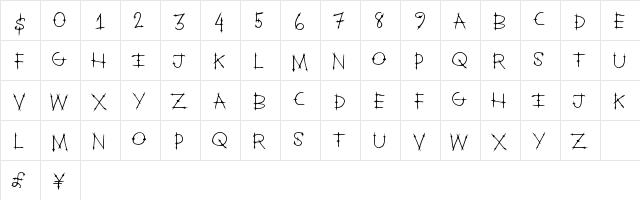
HeavenGate Regular
| Foundry | Xerographer Fonts |
| Designer | Xerographer Fonts Max Infeld |
Design Context for HeavenGate Typeface
HeavenGate is a composed and adaptable typeface that performs quietly and consistently across a wide range of design contexts.